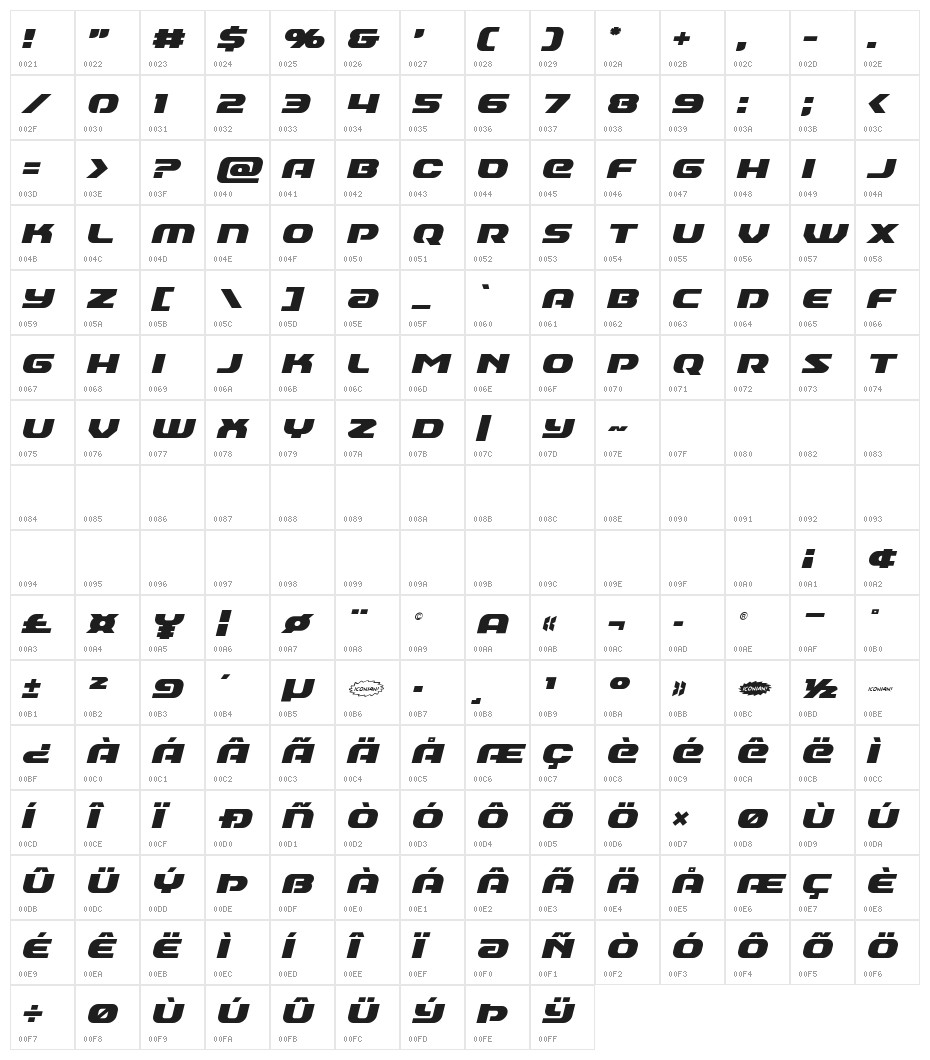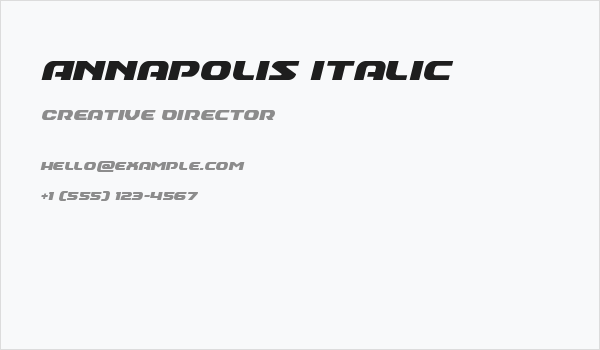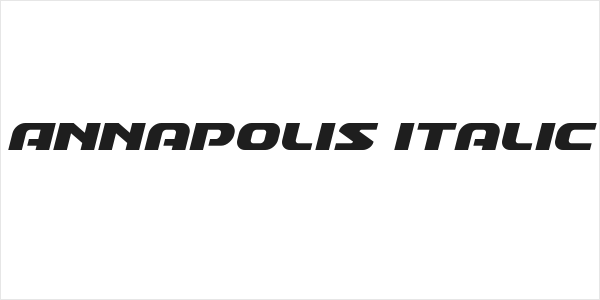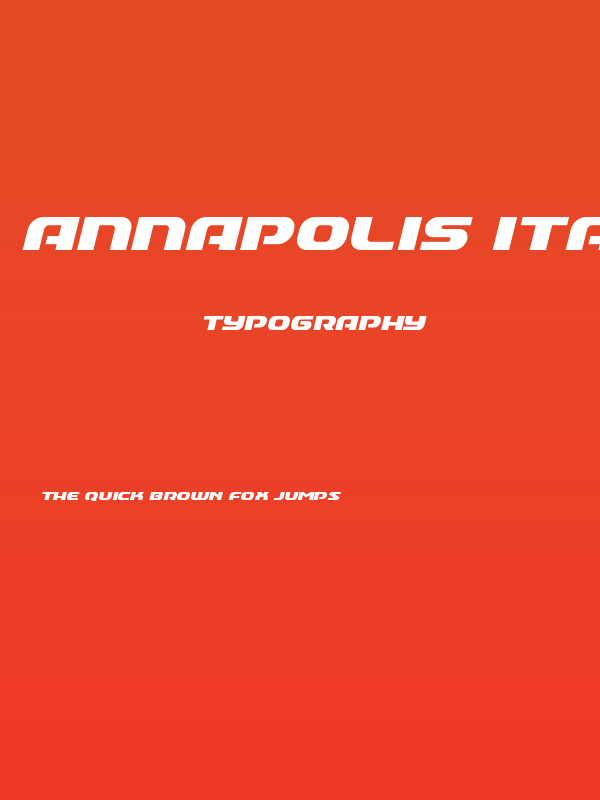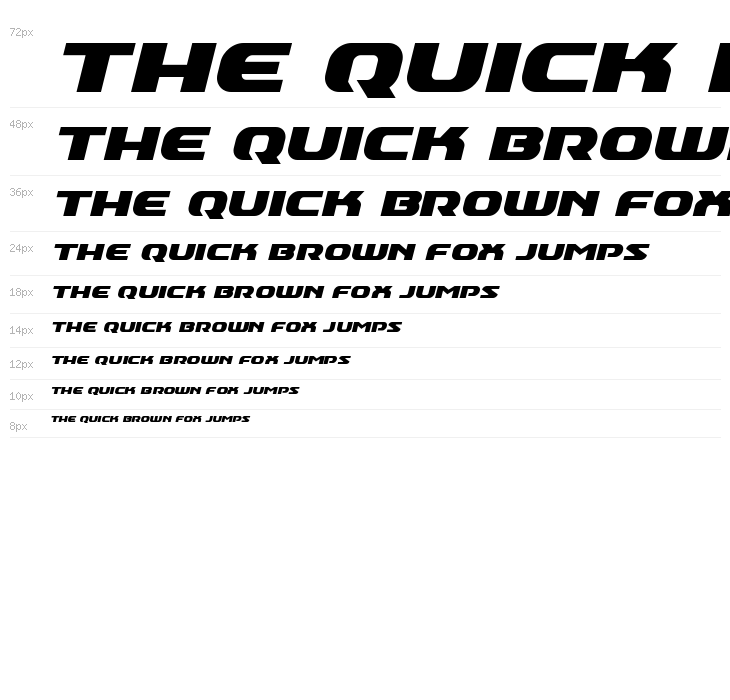
Annapolis Italic Font
Annapolis Italic Description
This font features a bold and dynamic italic style, characterized by its strong geometric shapes and slanted orientation. The uppercase and lowercase letters exhibit a consistent slant, giving a sense of movement and speed. The numerals and special characters maintain this dynamic quality, ensuring a cohesive look across all text elements. The font's bold weight and expanded width make it highly legible, even at smaller sizes. Its modern and sleek appearance is suitable for a variety of design applications, from sports branding to dynamic advertising materials.